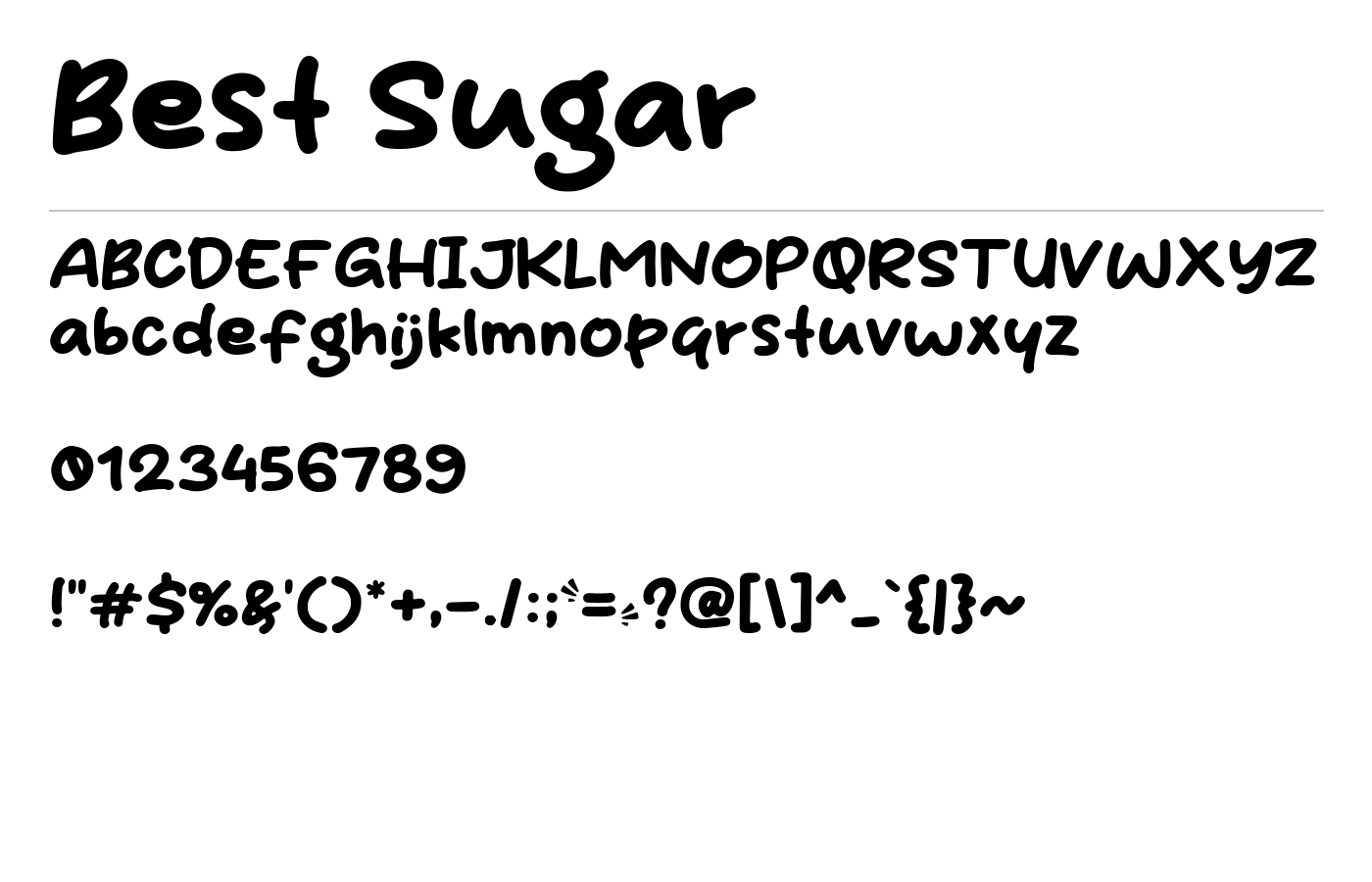
Best Sugar Font is a playful, handwritten sans serif that features bold, rounded strokes with a friendly and informal feel. Its casual letterforms and slightly irregular shapes make it perfect for designs that want to convey warmth, approachability, and fun, such as children's books, casual branding, or lighthearted posters. This font works well in headlines and creative projects where a personal, hand-crafted touch is desired.
Best Sugar Font
About Best Sugar Font
| Font family | Best Sugar Font |